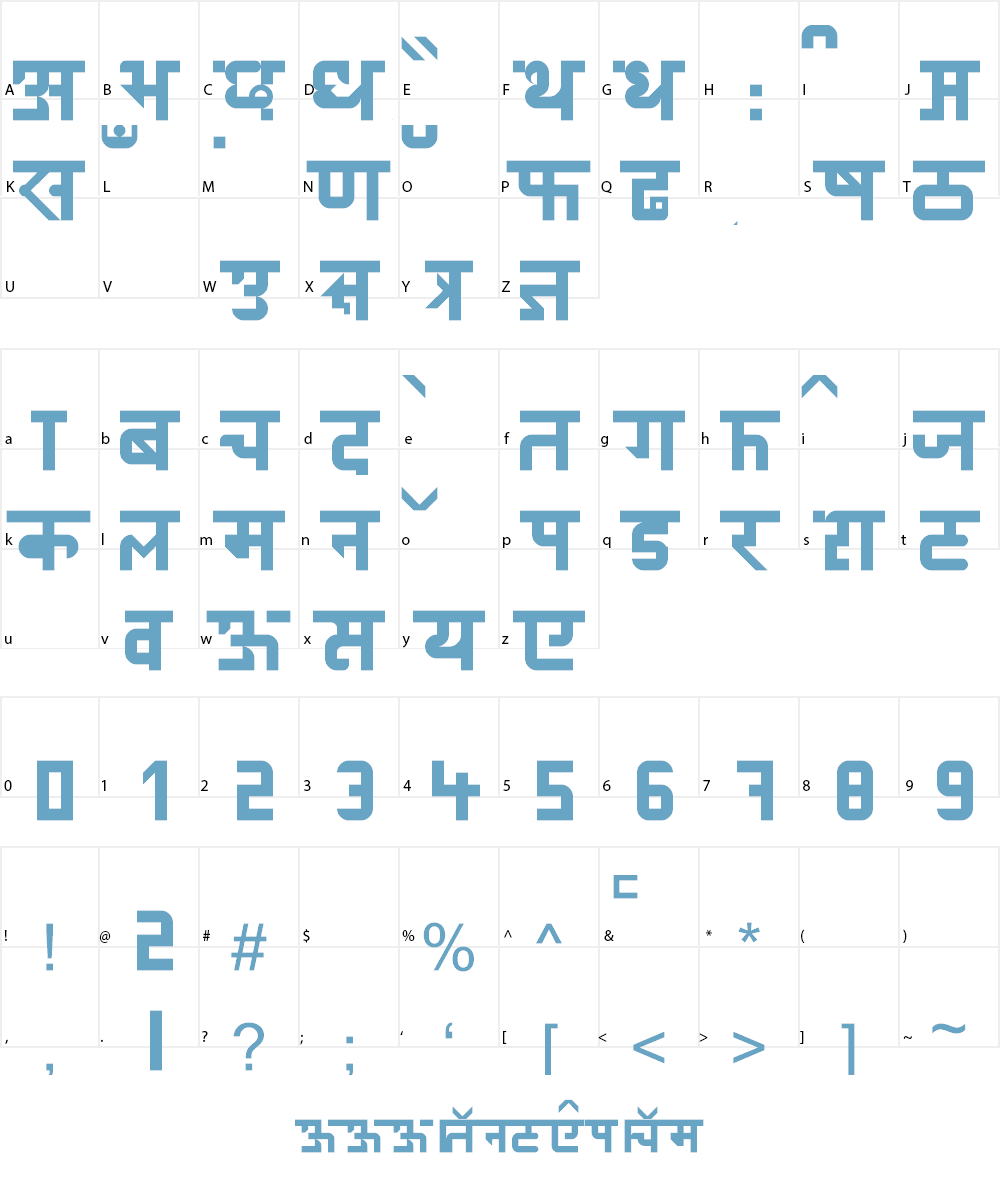
the matras to some extent are similar and you cannot write half forms to write half forms you have to use a a" matra below each consonant to make is sound like half and r accent is given which is similar to devanagri accent...